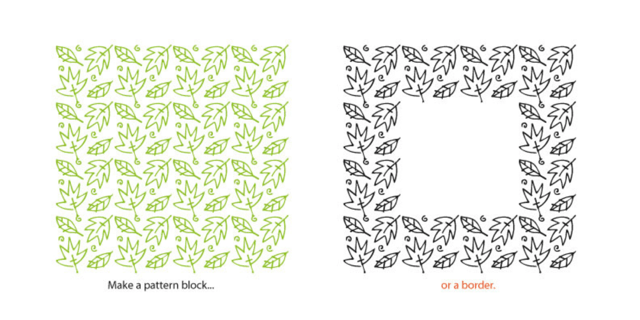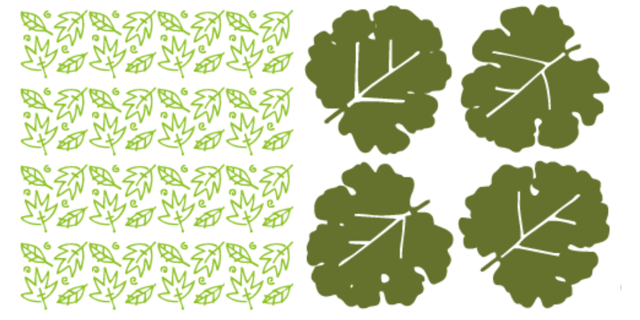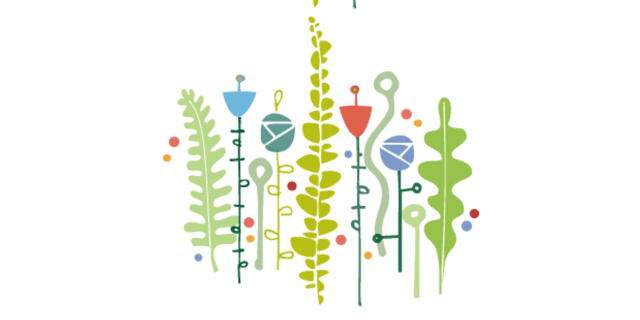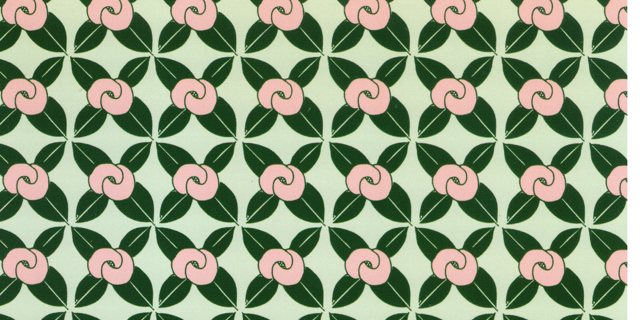
Flower & Leaf Borders
Font Family by Outside-the-Line
Buy Now30 illustrations of flowers and leaves that can be used alone, in a row, or to make a pattern or border. This simple-to-use witty font is perfect to add some punch to your newsletters, invitations or scrapbooking projects. Outside the Line also has hand drawn alphabet fonts that work nicely with these illustrations.